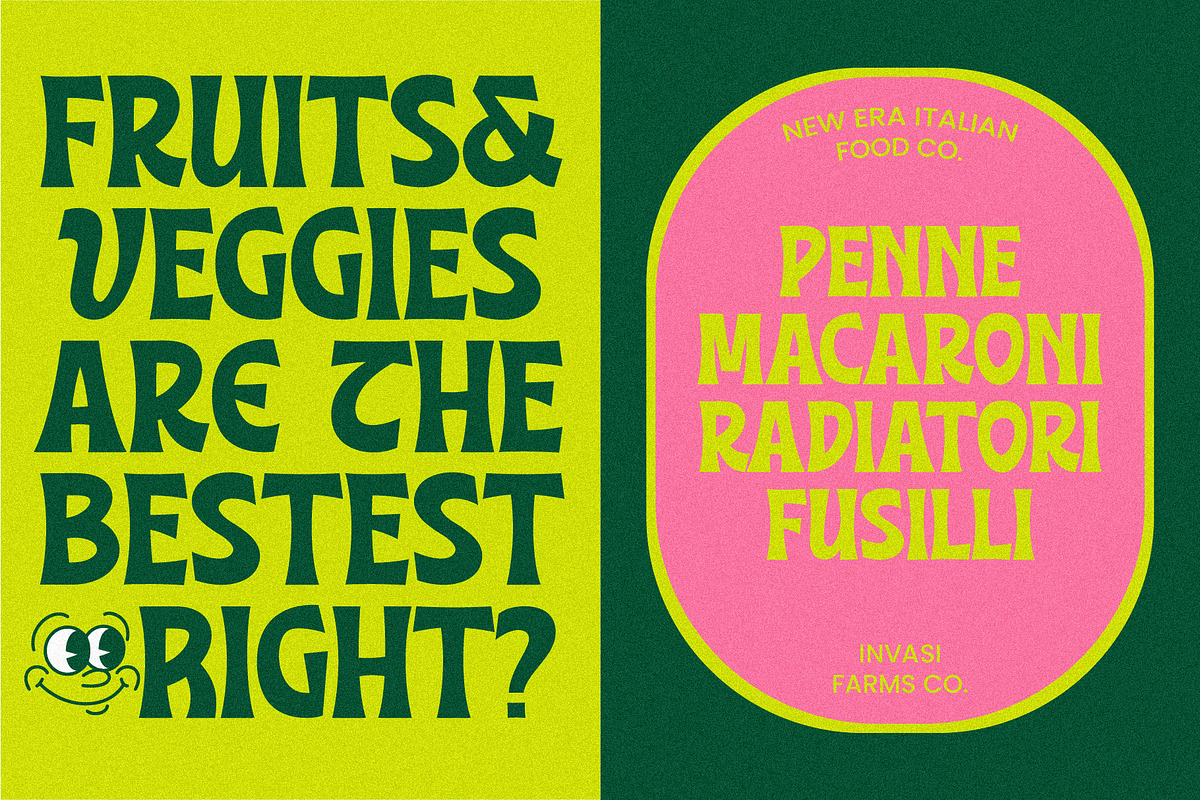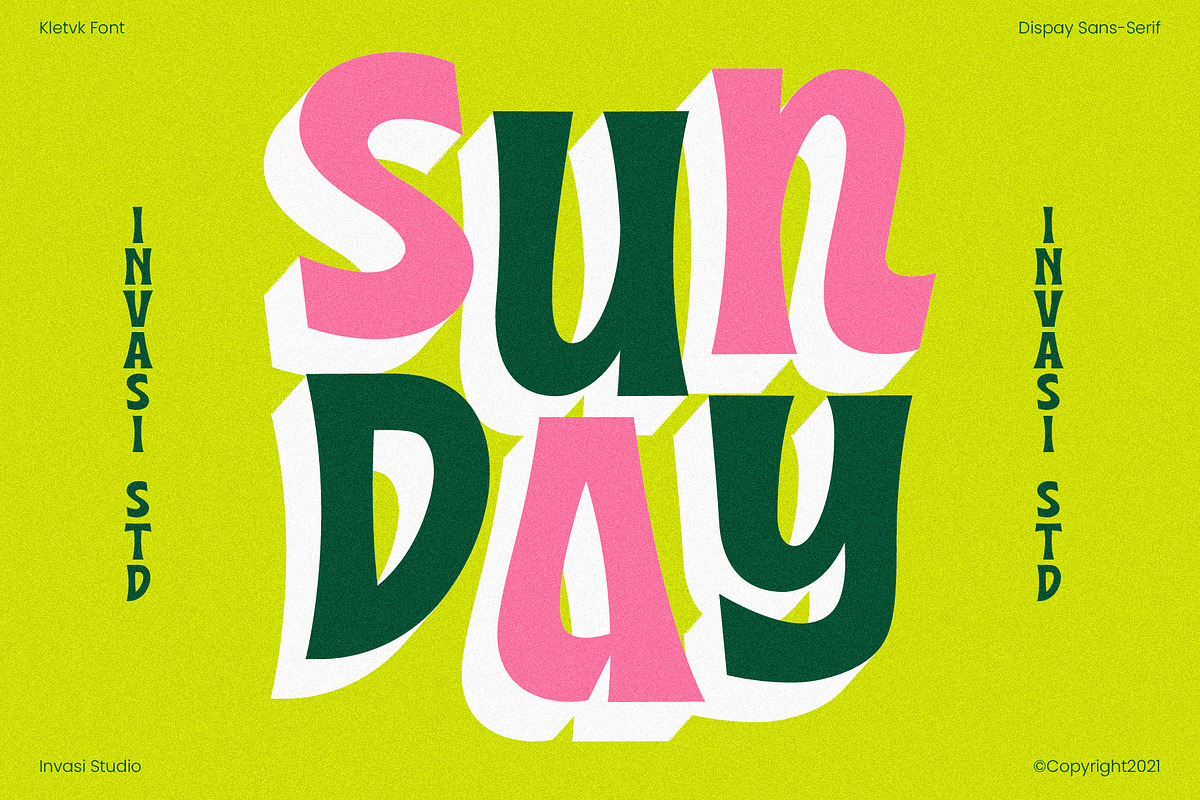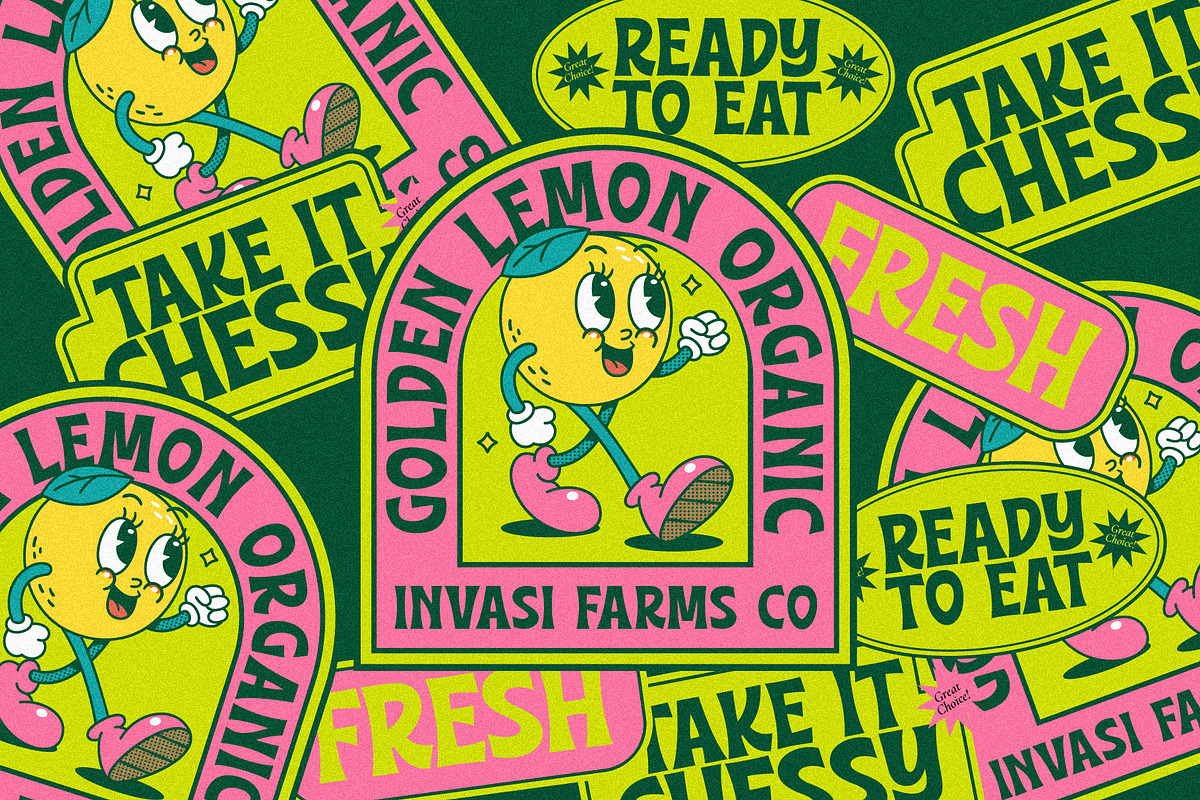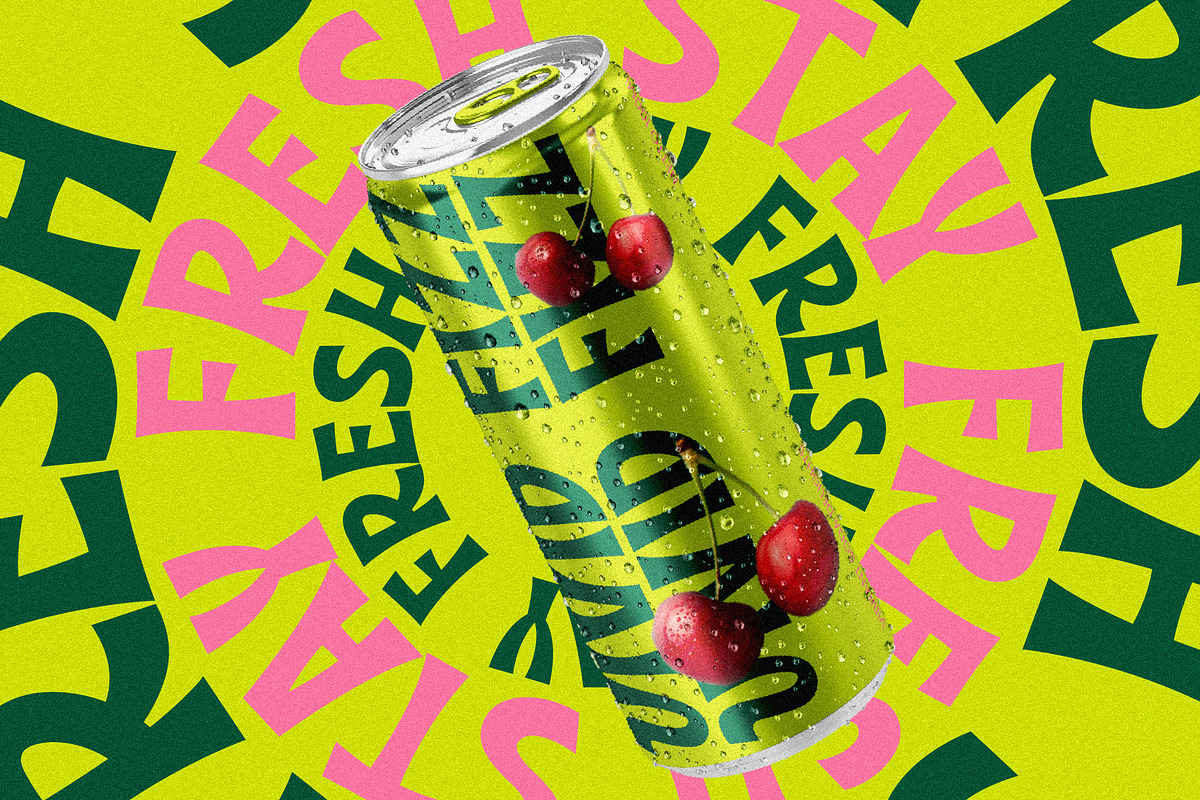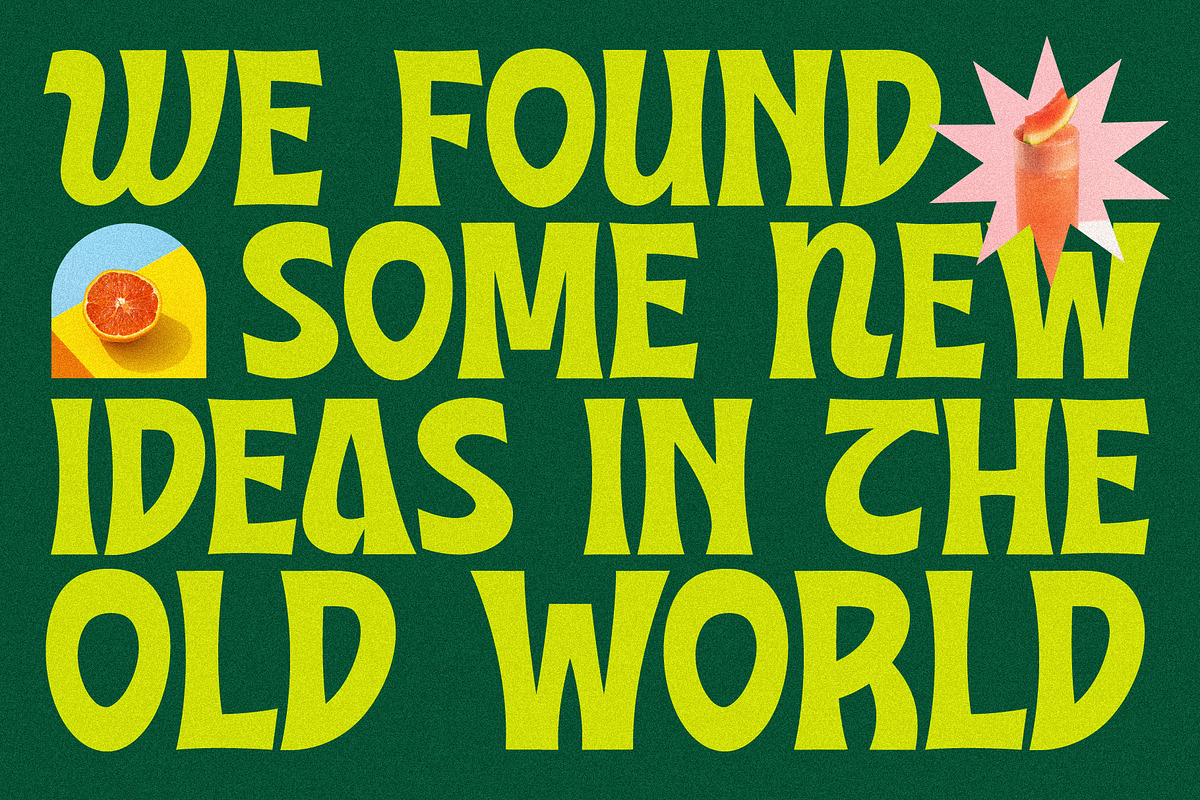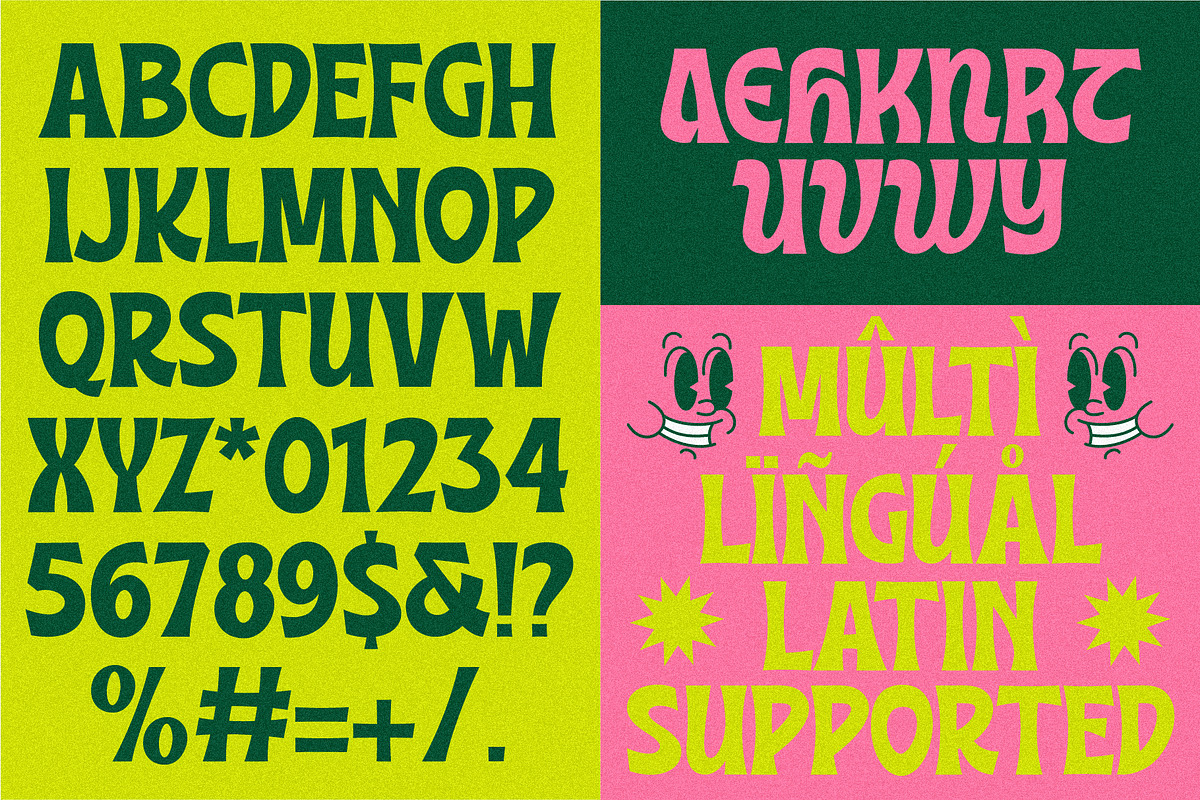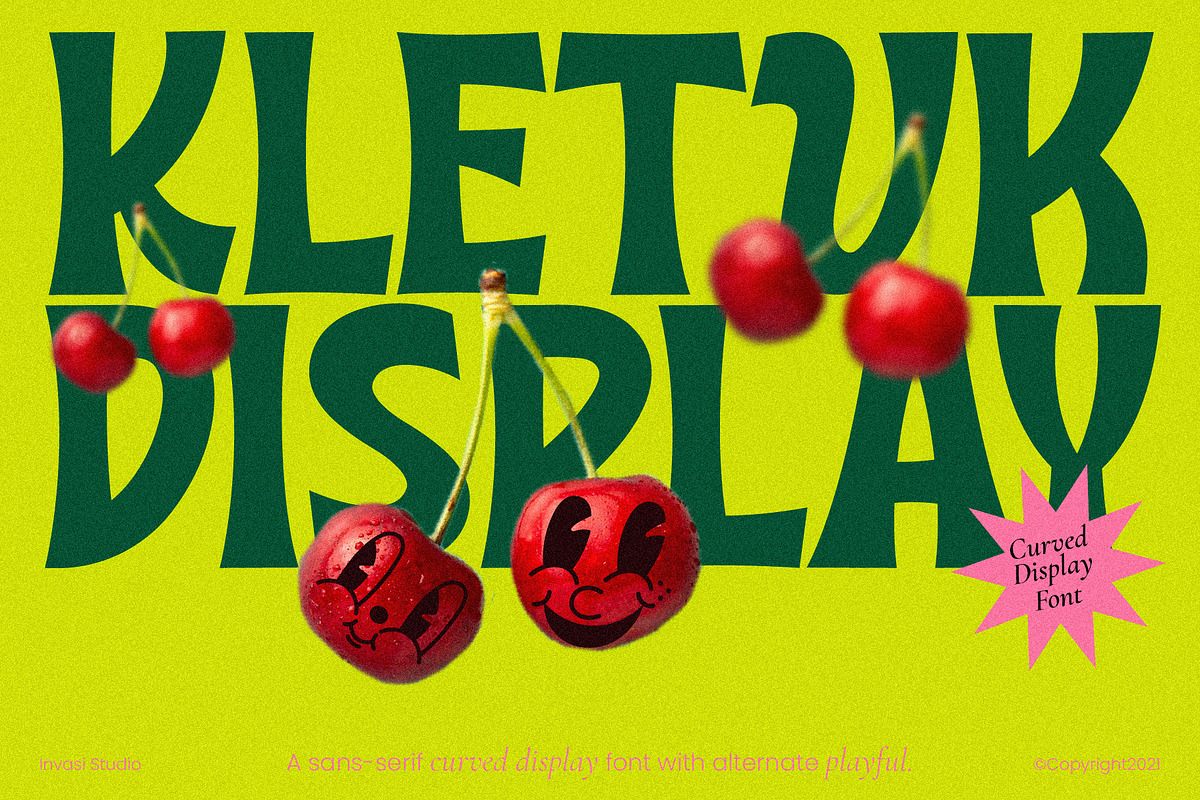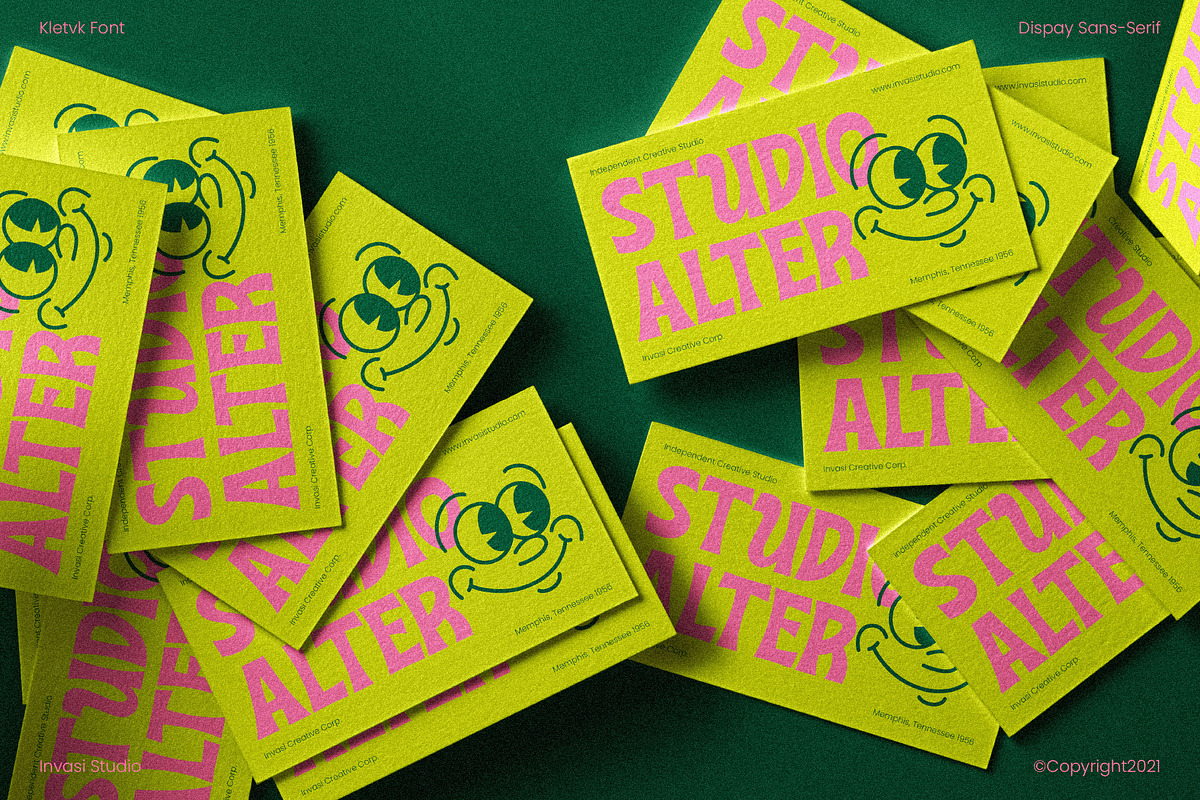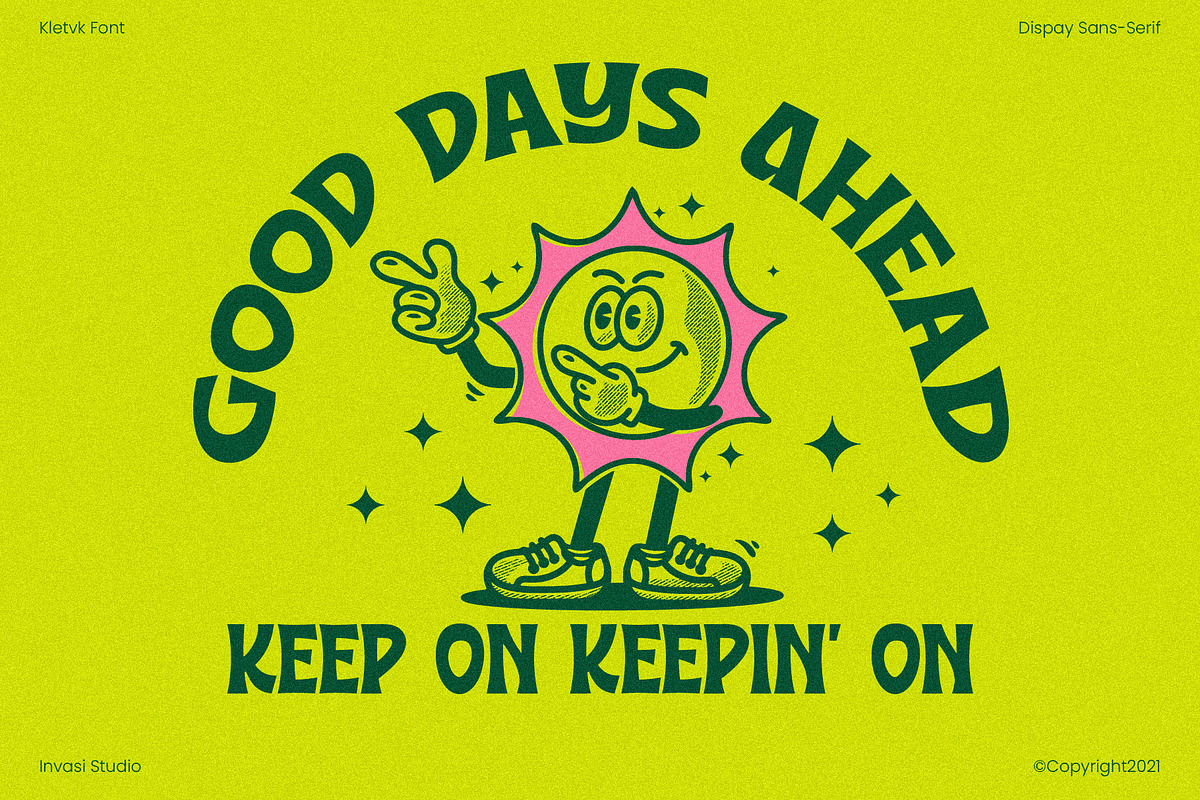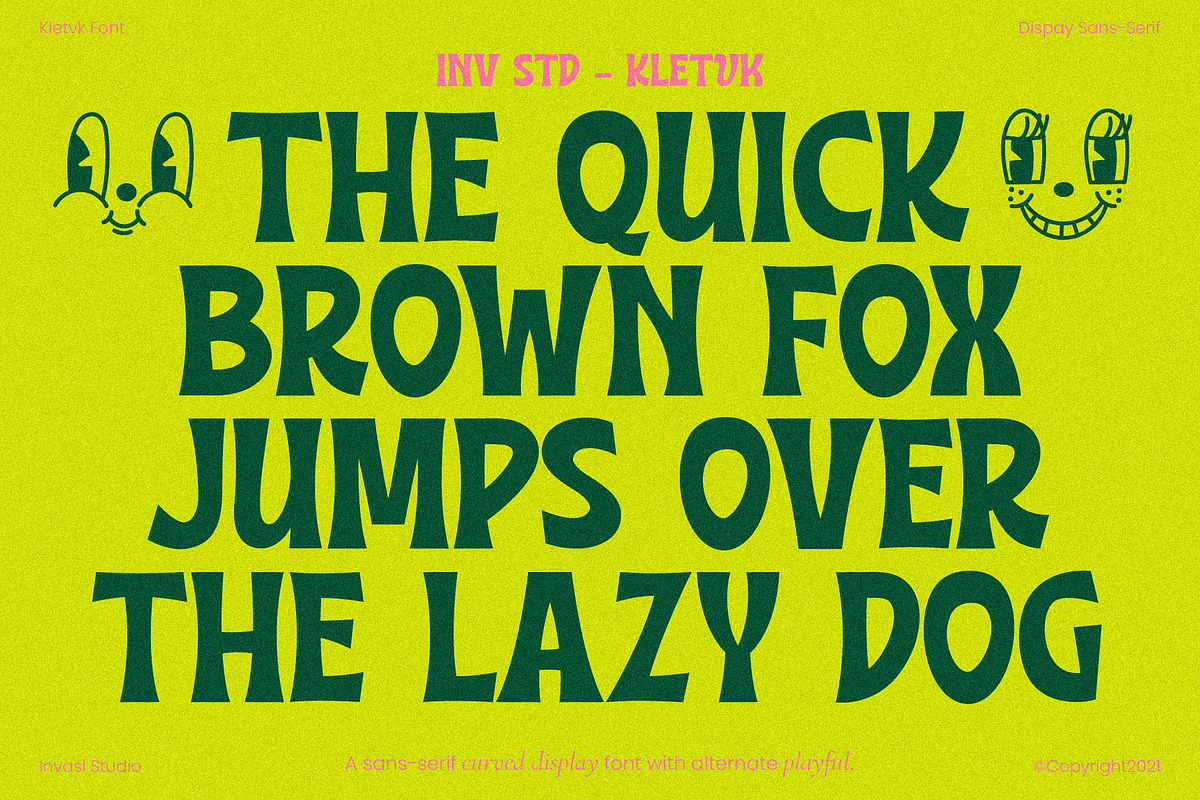
Kletvk - Curved Display Retro
Kletvk is a captivating sans-serif display font that exudes a retro vibe. Its distinct feature lies in the beautifully curved glyphs and the inclusion of special alternates with swash characters, adding a touch of elegance and uniqueness to your designs.
Whether you're working on headlines, quotes, editorial designs, or print posters, Kletvk is the ideal choice to make your text stand out. Its retro-inspired style brings a nostalgic charm to any project, creating a visually appealing and memorable impact. With its attention to detail and artistic design, Kletvk allows you to convey your message with style and sophistication.
- Multilanguage Supports 60+ Latin-based languages